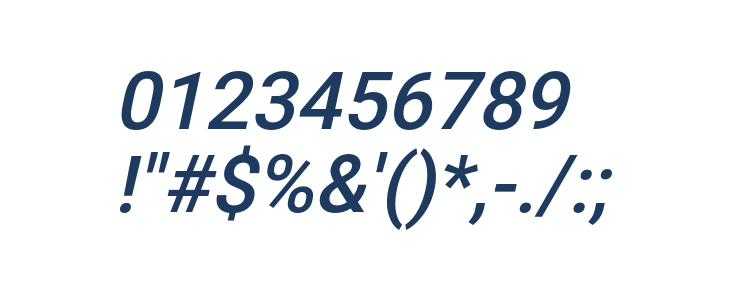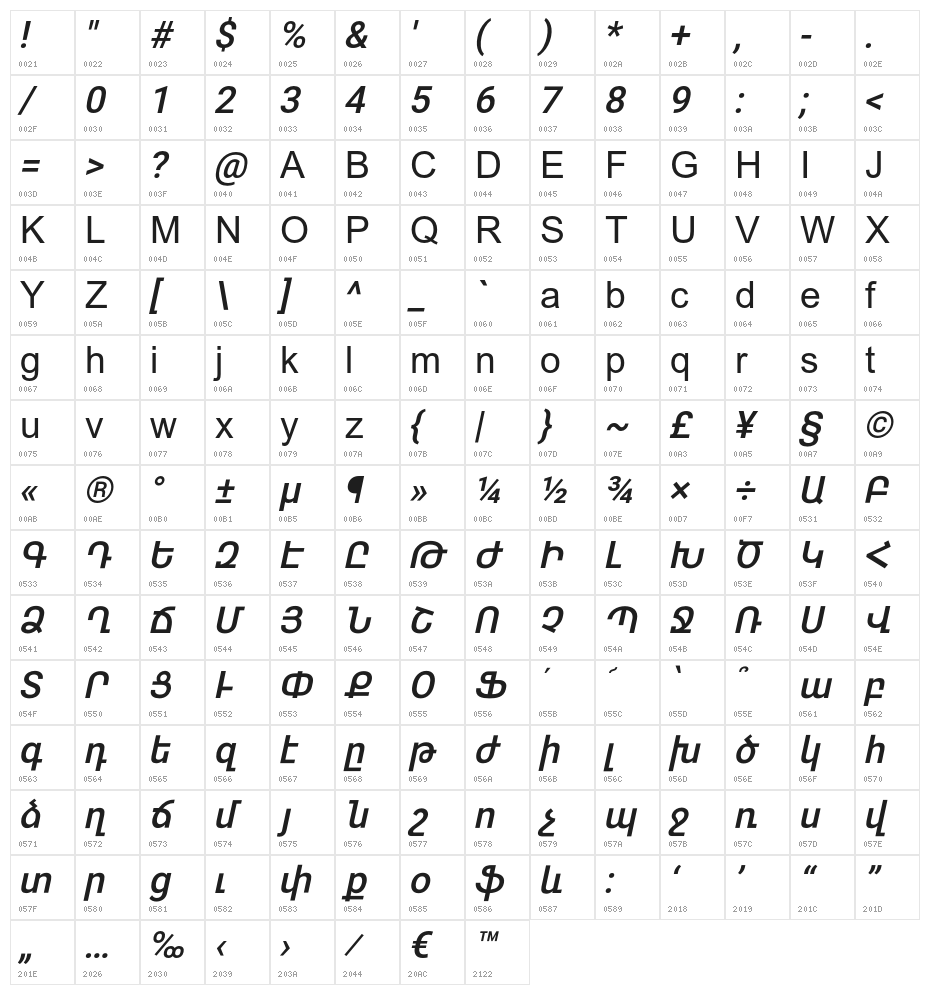
Nicolo-Italic Font
Nicolo-Italic Description
This font exhibits a clean and modern sans-serif style with a slight italic slant, giving it a dynamic and forward-moving appearance. The characters are well-proportioned, maintaining a consistent stroke width throughout, which contributes to its readability. Uppercase and lowercase letters are balanced, with a slight emphasis on the vertical strokes. The numerals are clear and distinct, matching the overall aesthetic of the alphabetic characters. Special characters are well-integrated, ensuring versatility in various typesetting scenarios. The font's simplicity and elegance make it suitable for a wide range of applications.
| Proposed Projects | Ideal for branding, advertising, digital content, and editorial design where a modern and sleek appearance is desired. |